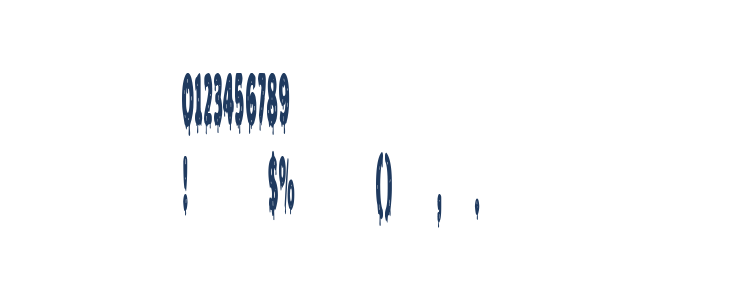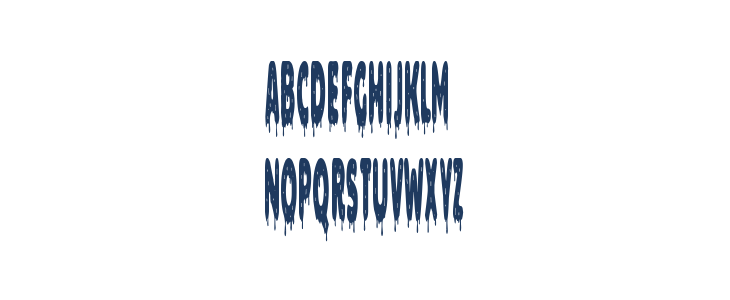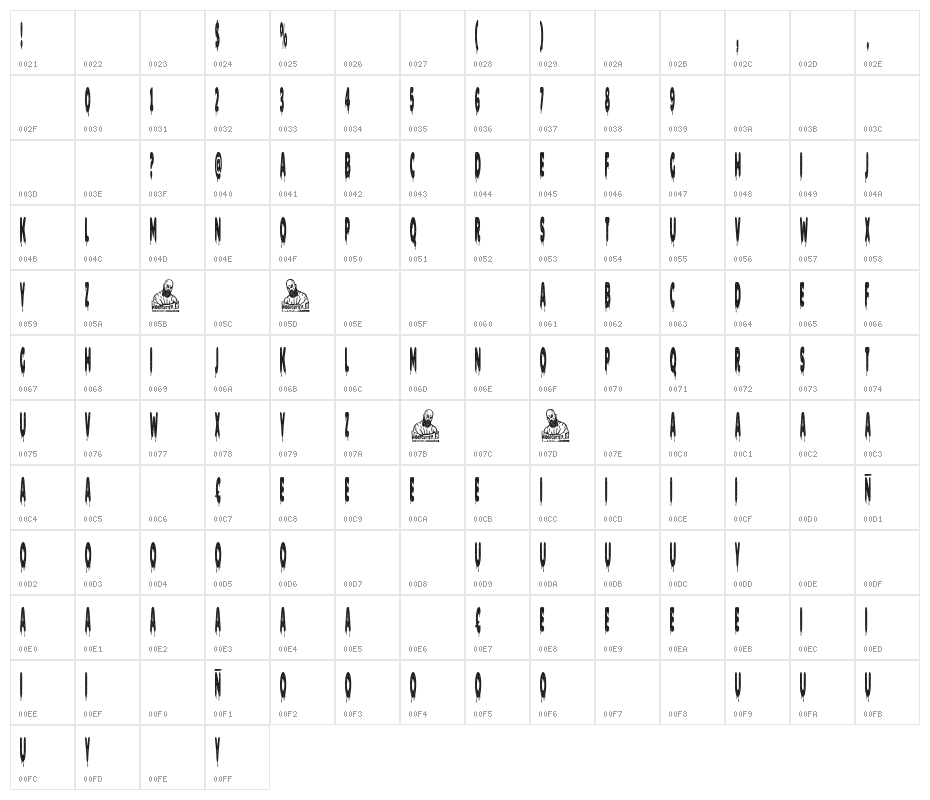
Revenge Team Font
Revenge Team Description
A bold, decorative display font with a dripping, liquid effect on each character, evoking a spooky or horror-themed aesthetic. The characters are tall and condensed, with irregular edges and pronounced vertical drips extending downward.
| Overall Style | Decorative, Horror, Spooky |
| Use Case | Headlines, Posters, Logos, Event Titles |
| Proposed Projects | Halloween posters, horror movie titles, haunted house flyers, themed party invitations, spooky event branding. |